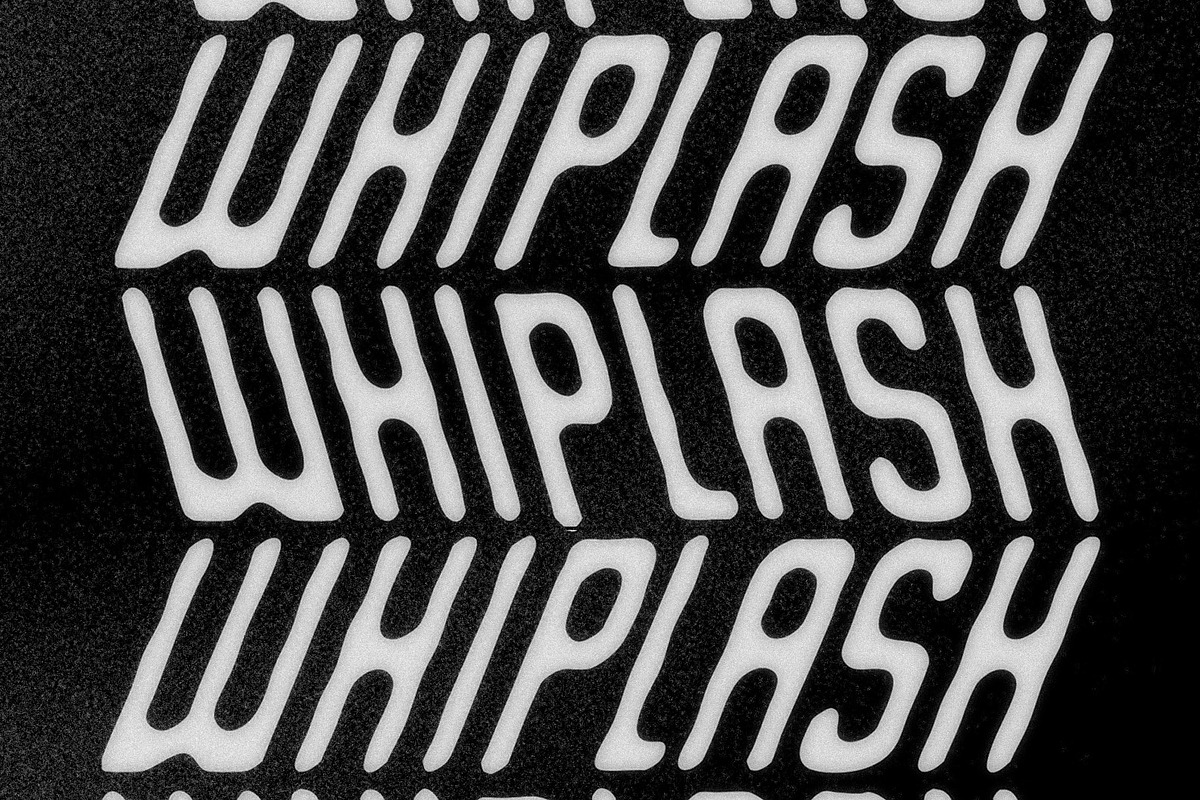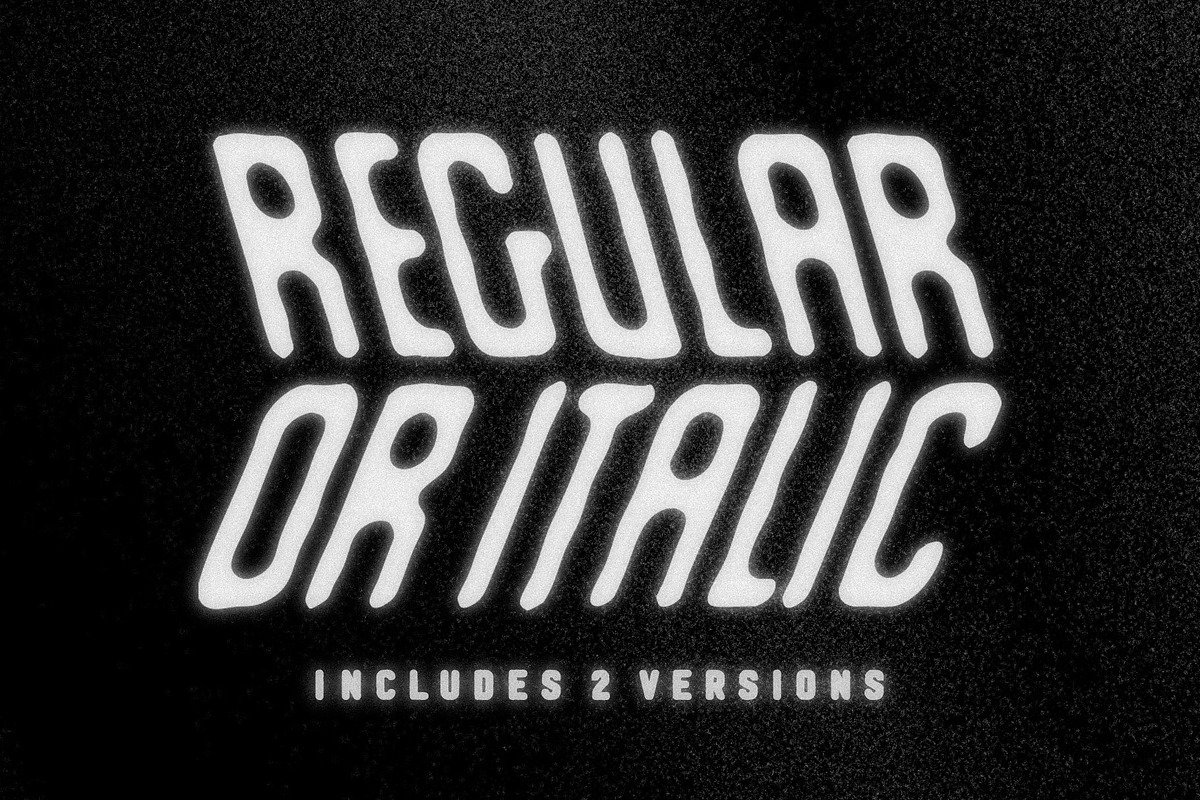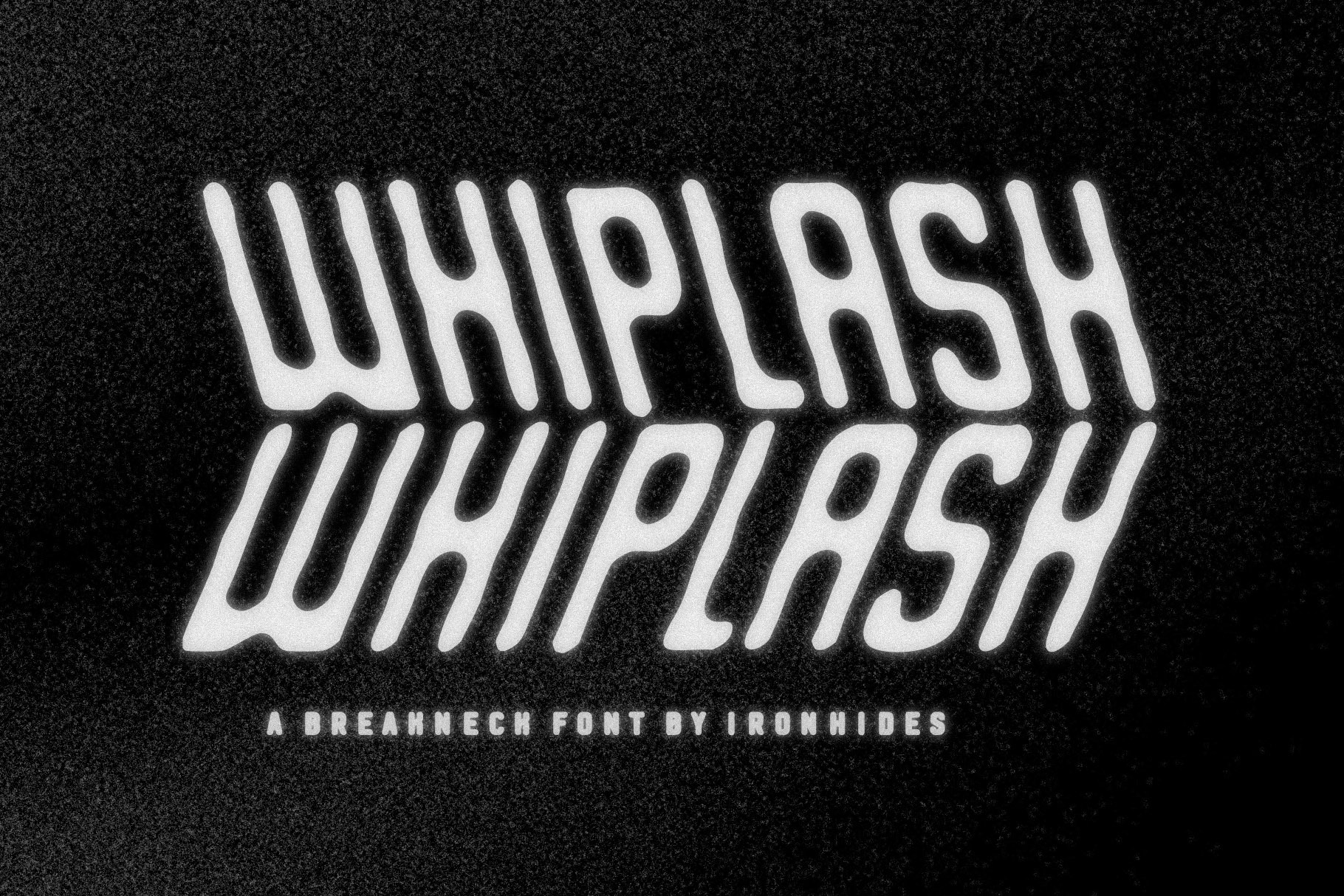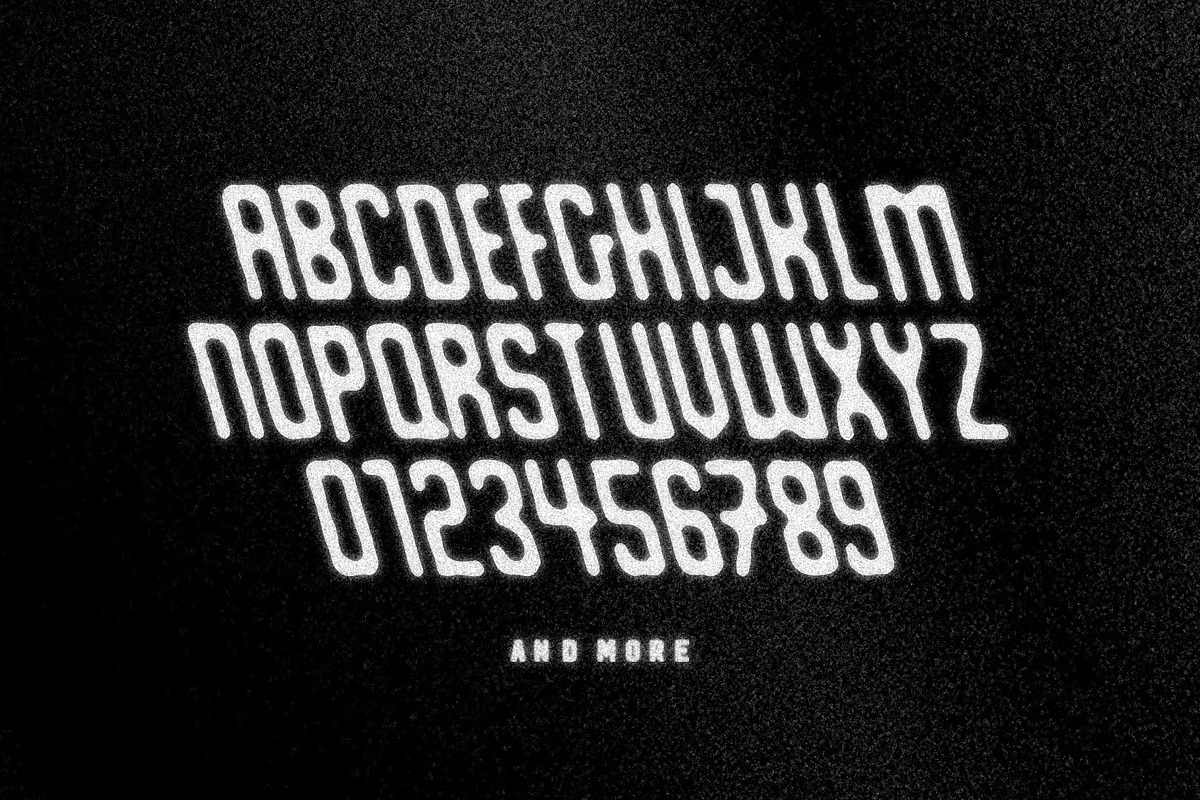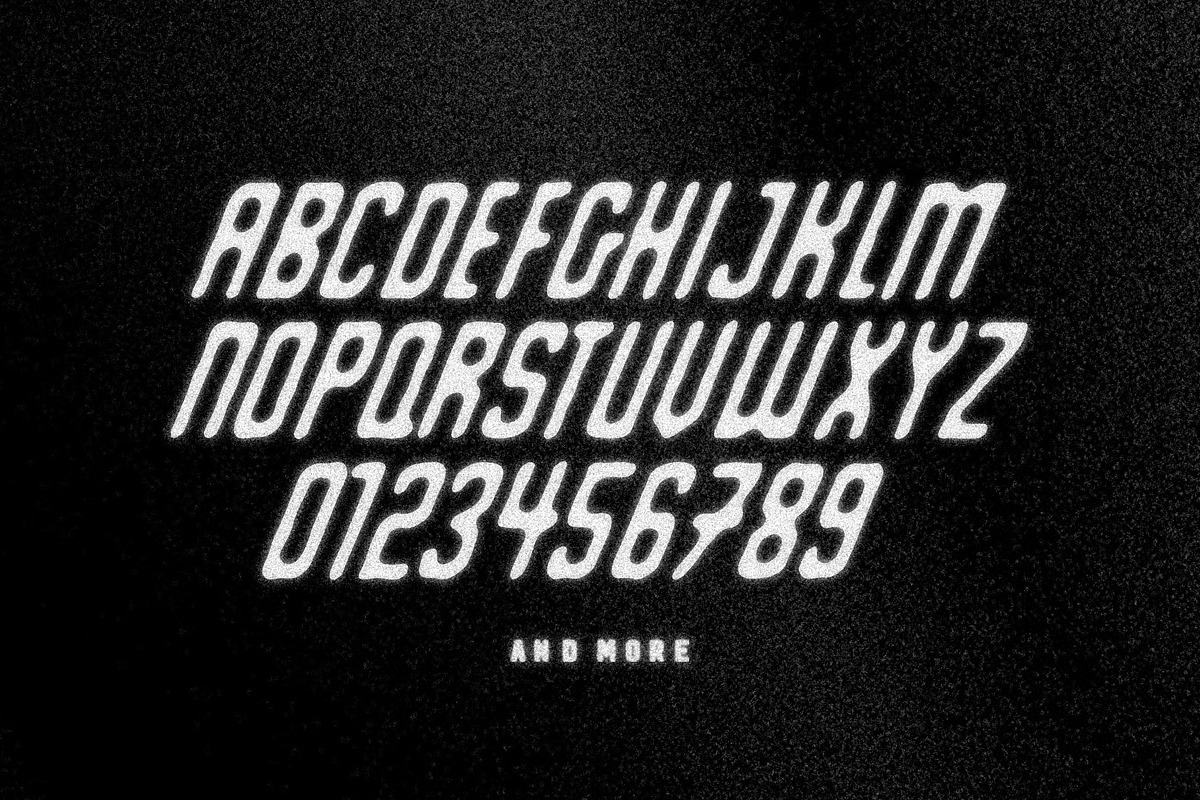
WHIPLASH - A Slanted Font Duo
Whiplash is a distorted display font duo built around motion and tension.
The set includes two complementary styles: one leaning forward and one leaning backward, creating a natural sense of push and pull when used together.
This opposing motion makes Whiplash perfect for bold poster layouts, music artwork, streetwear graphics, editorial design, and experimental typography where energy and impact matter.
Use the forward and backward styles together to create dynamic compositions, stacked layouts, and striking typographic contrast.
Best suited for
• Posters • Music artwork • Streetwear graphics • Editorial design • Branding and logos • Experimental typography